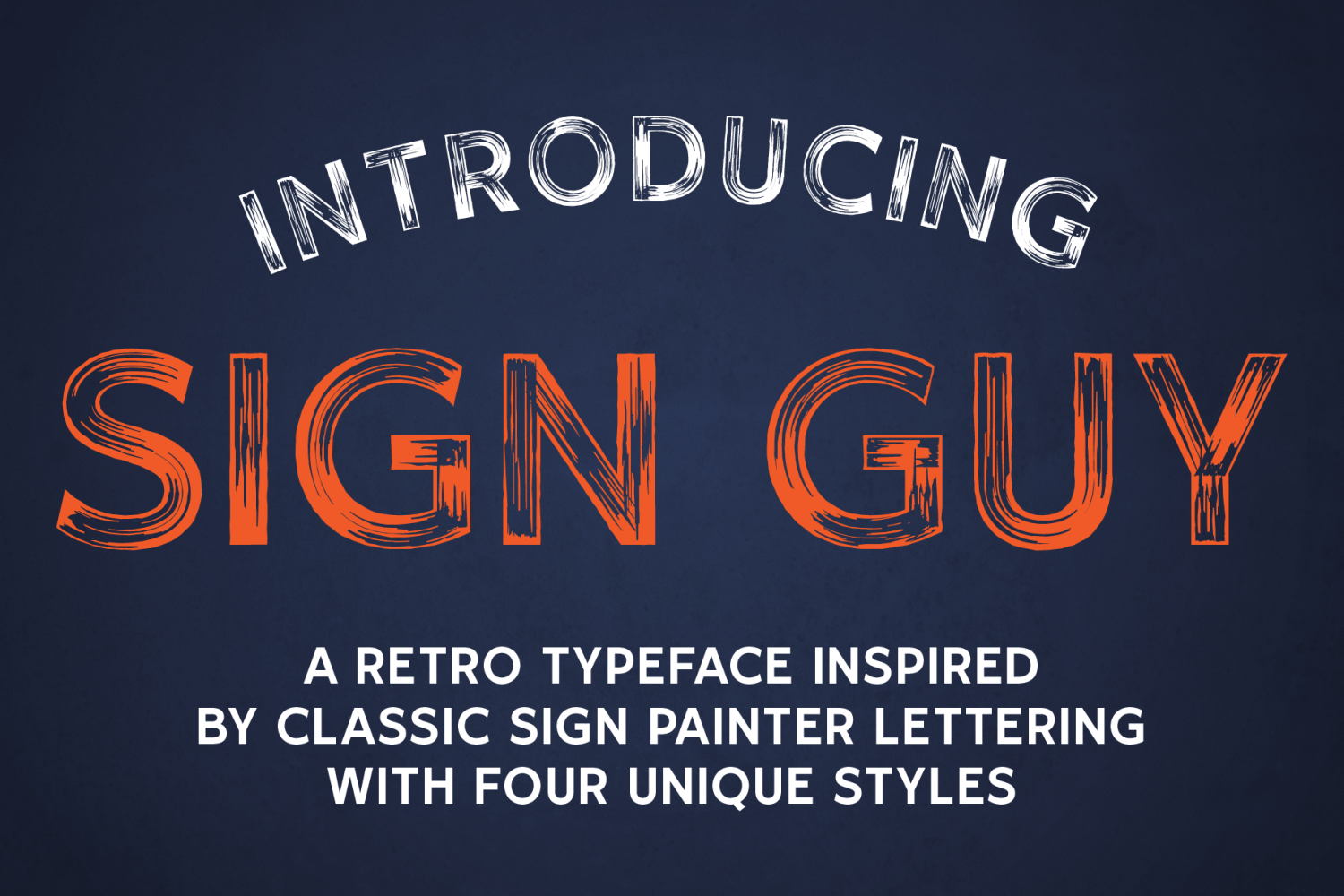
About Sign Guy
Sign Guy is a classic sign painter\’s typeface based on Speedball\’s Showcard Single Stroke Gothic. It features four different fonts, with three using varying levels of distressing to mimic the weathered and worn look you might see on an old shop truck…